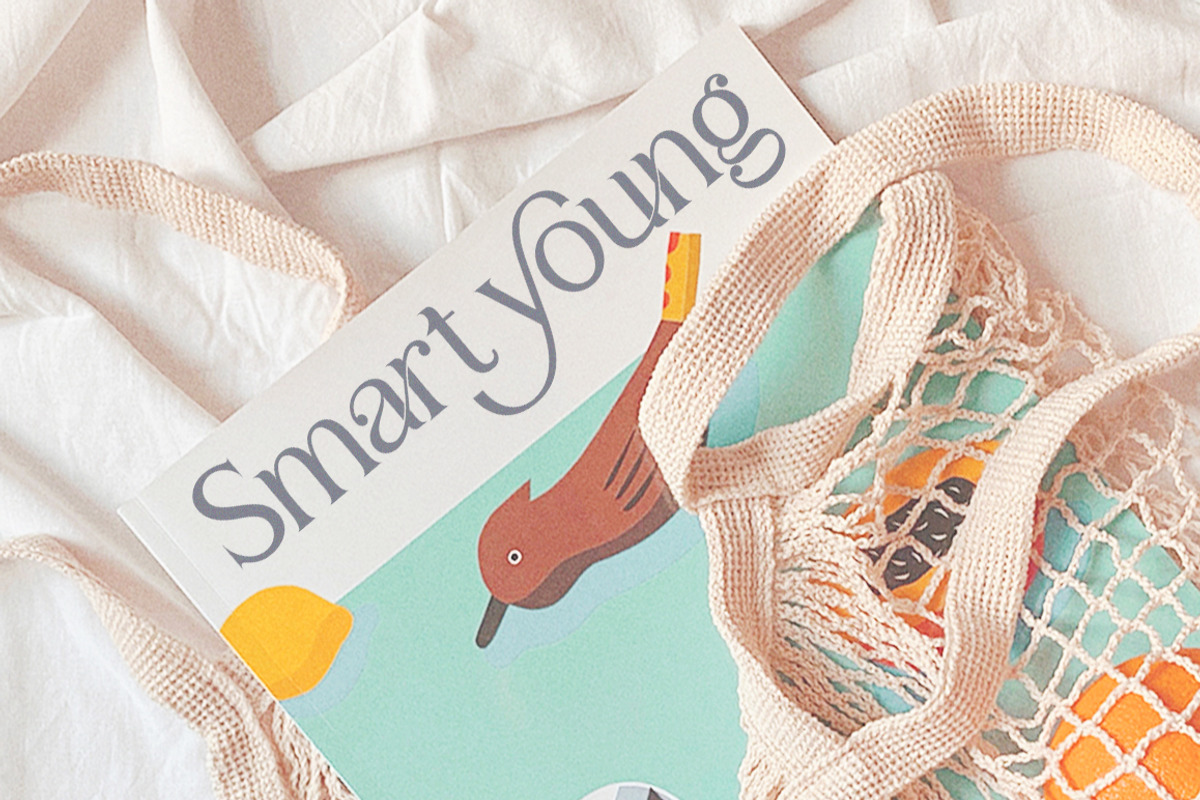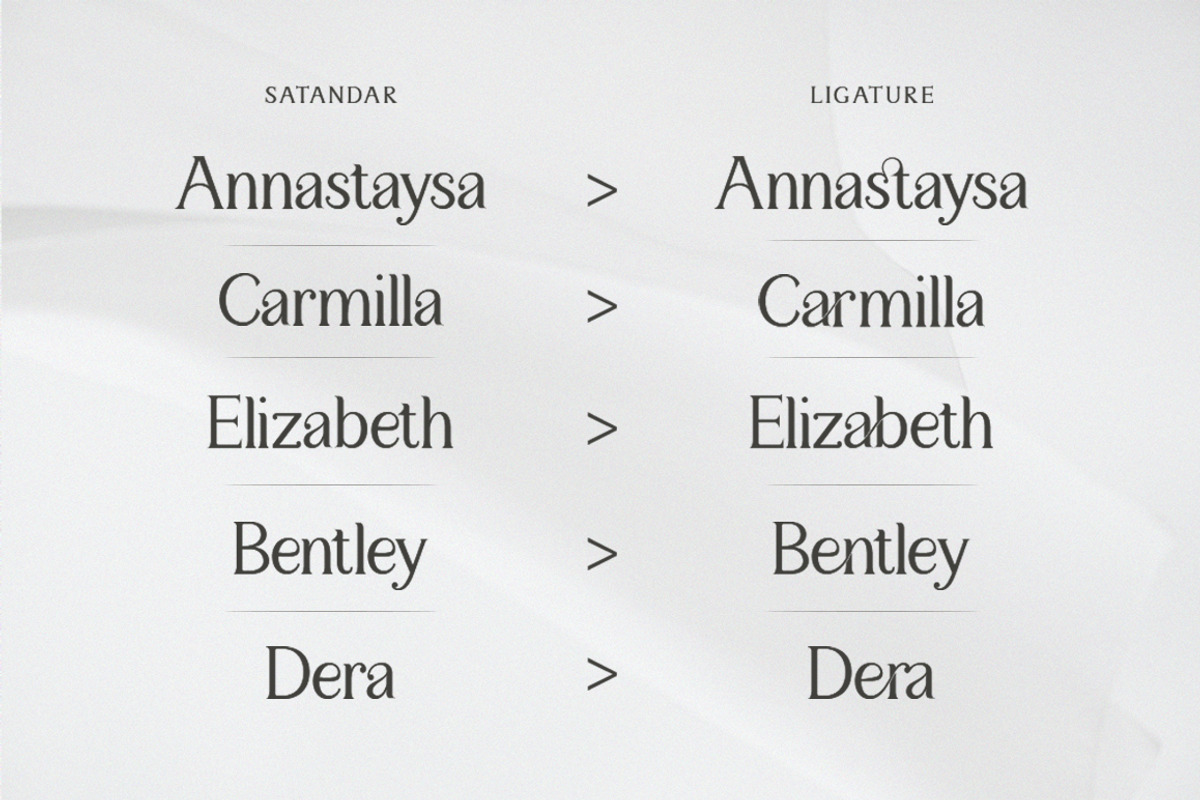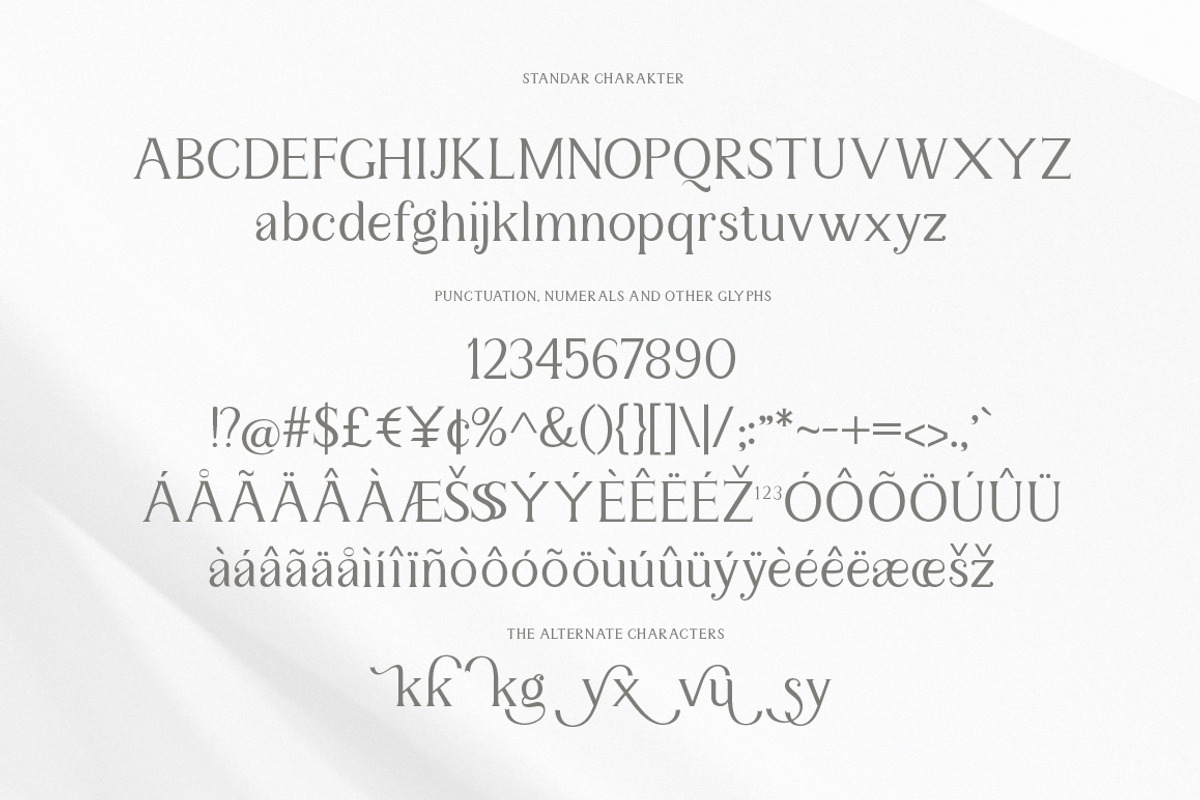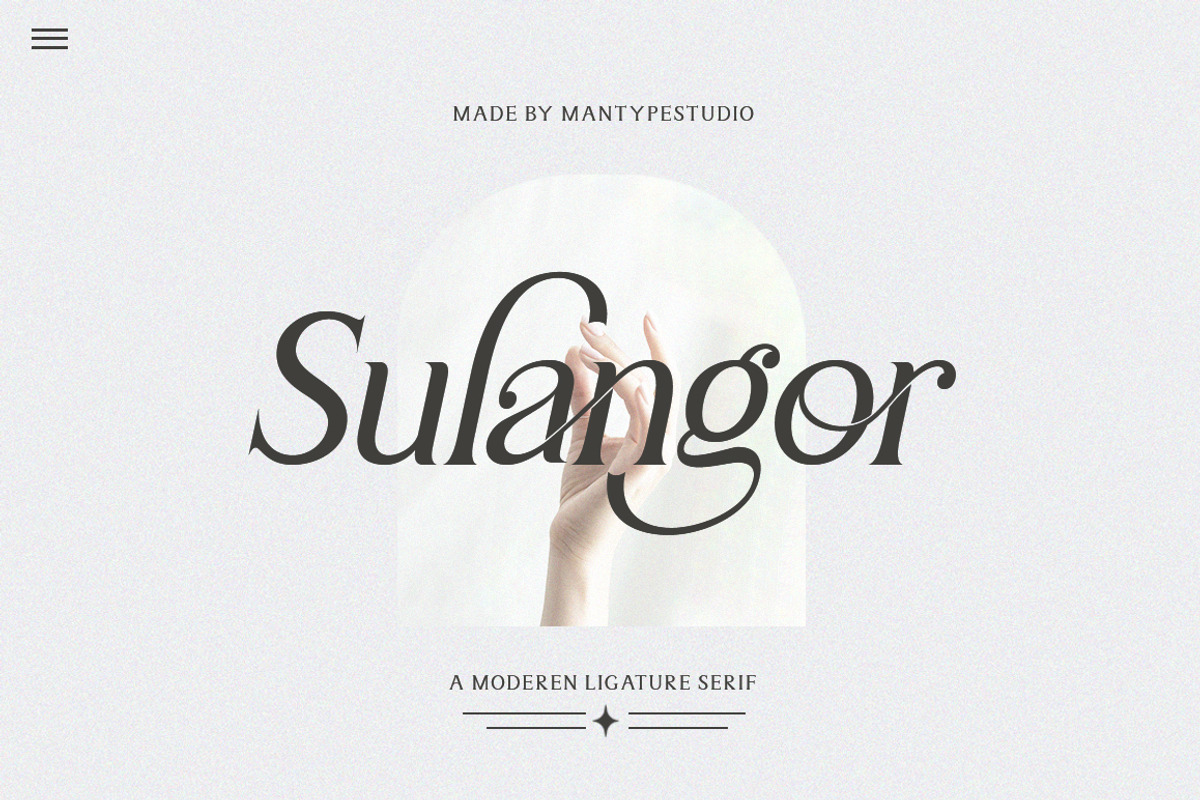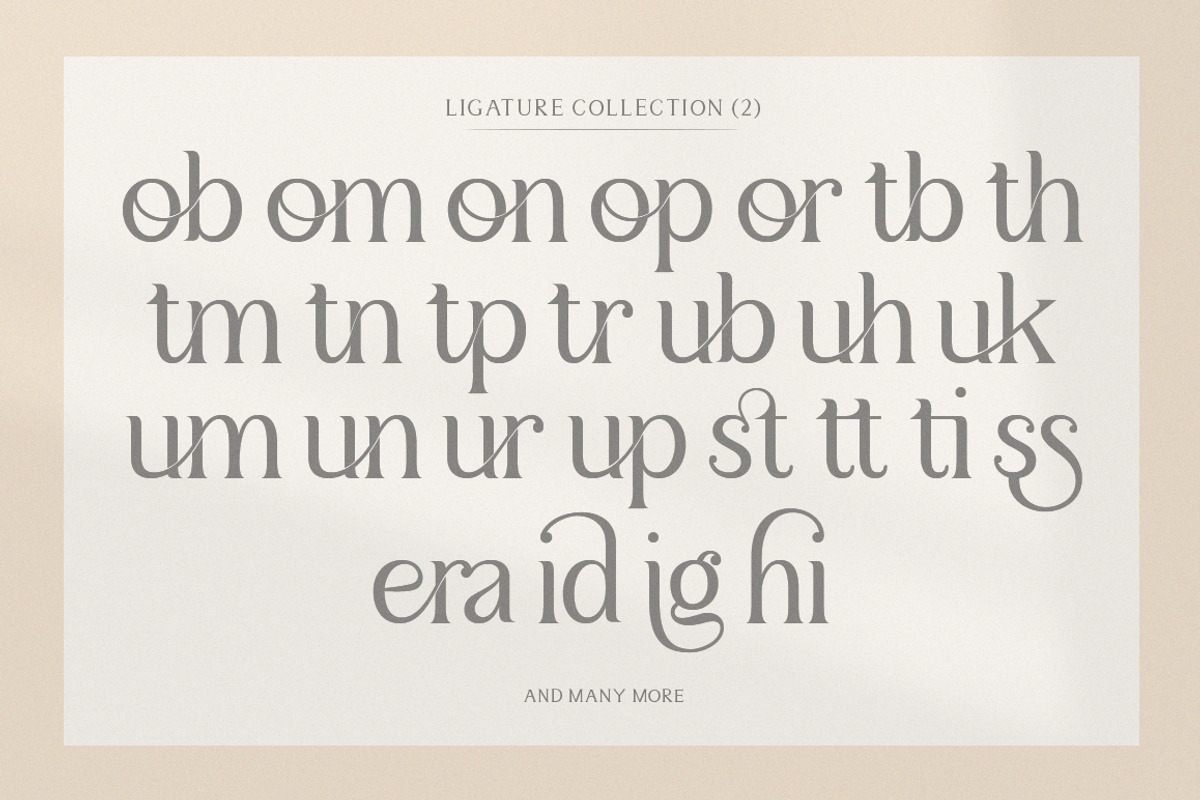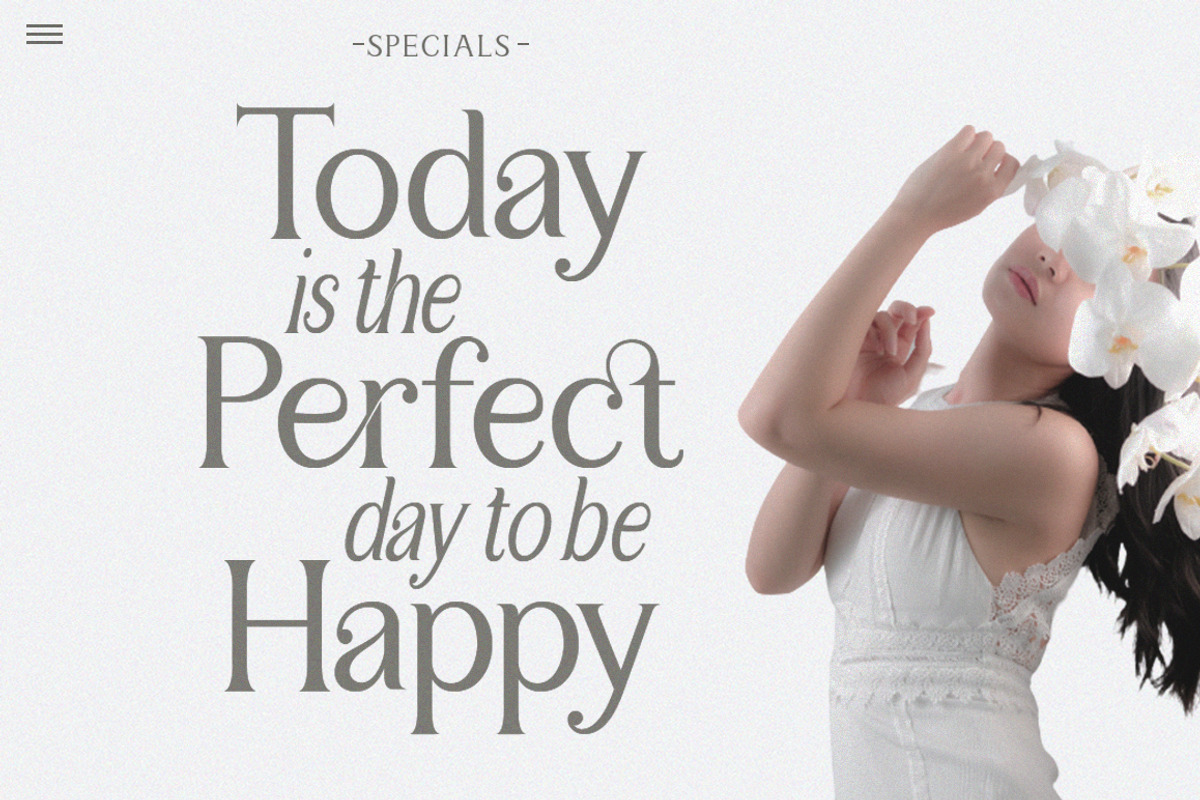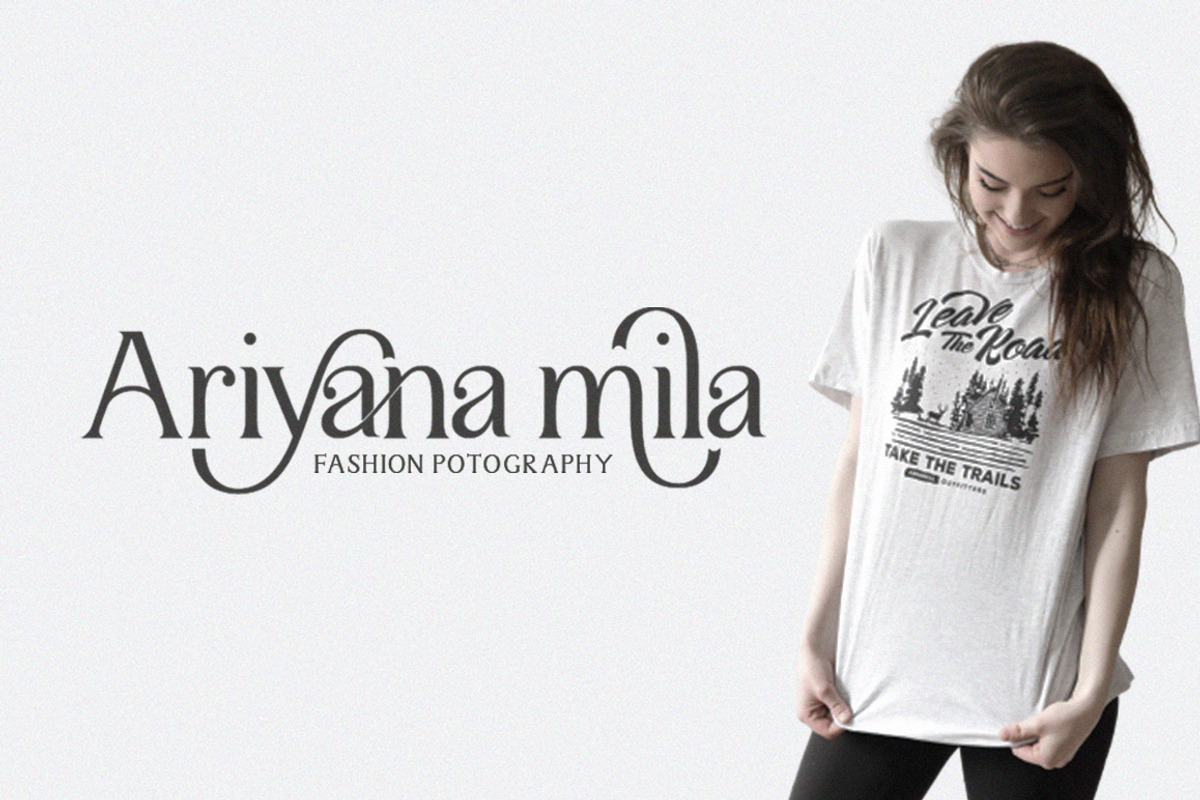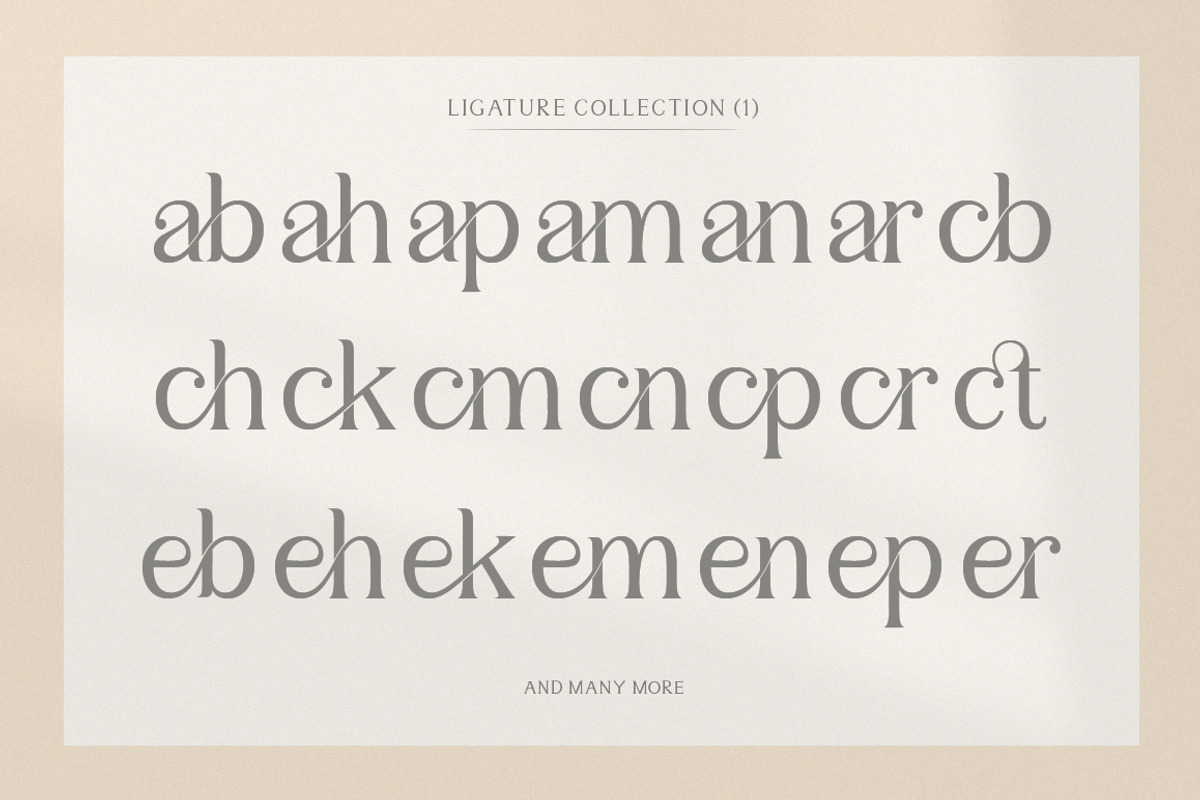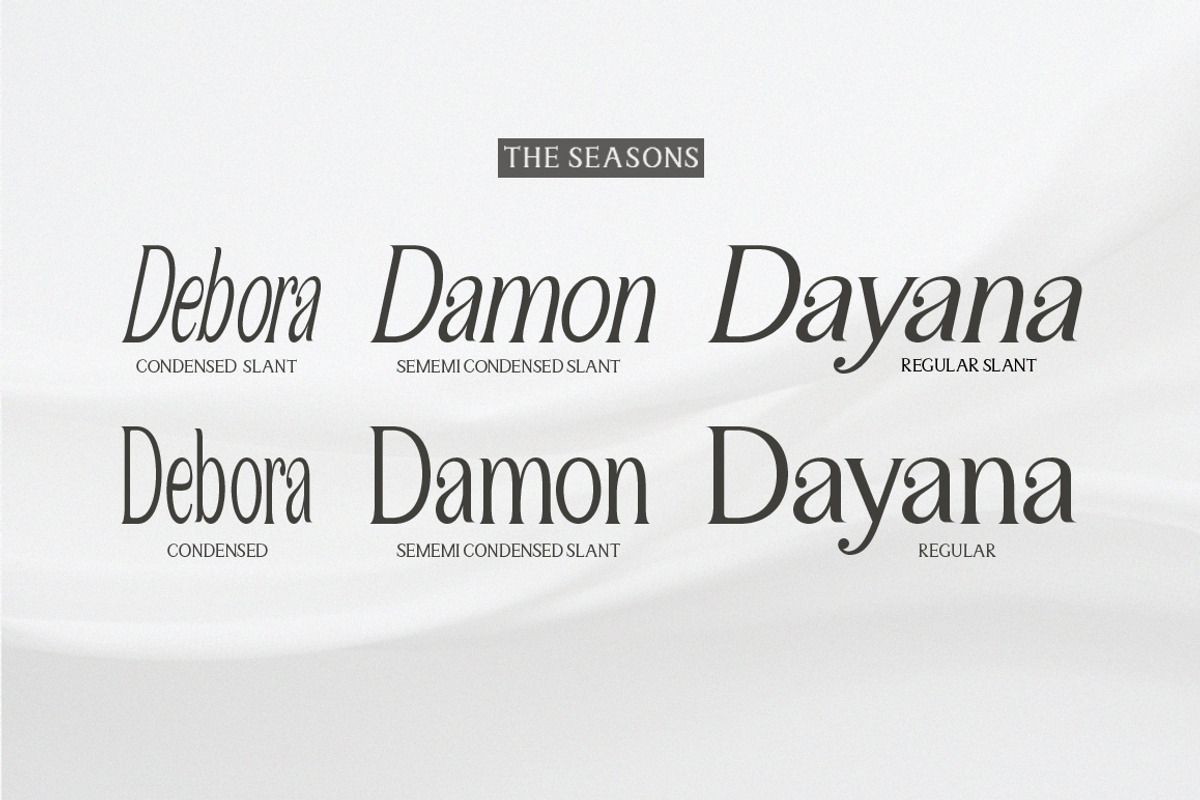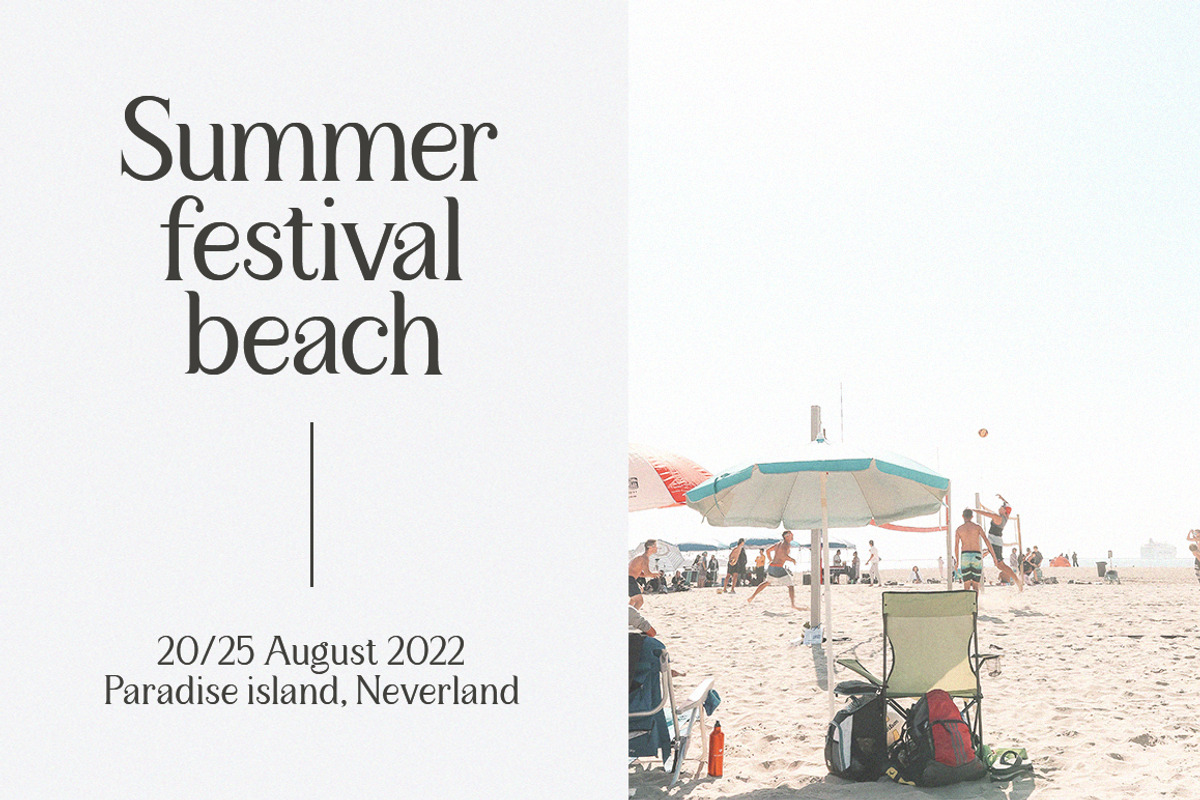
Sulangor
Sulangor is a stylish and rich serif font with letters that seem to dance and twist harmoniously together to form unique and elegant typography designs. Add it confidently to your projects and you will love the results!
Wide range of stylistic alternates and ligatures, allows versatile design options work perfectly for elegant branding, magazine design, logo design, headlines, posters, packaging, cards or your wedding invitation.